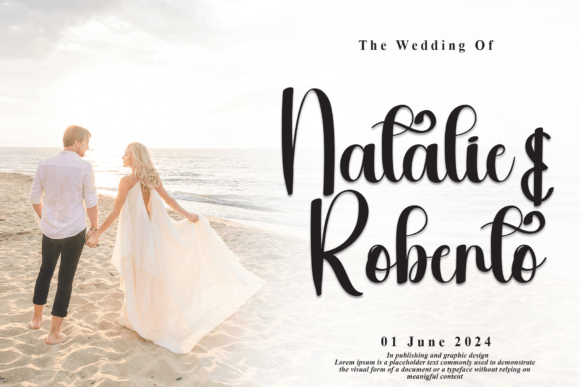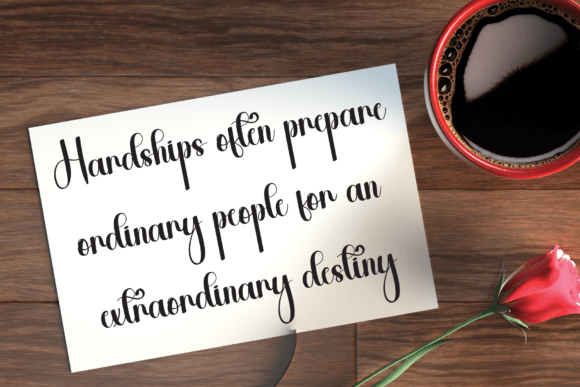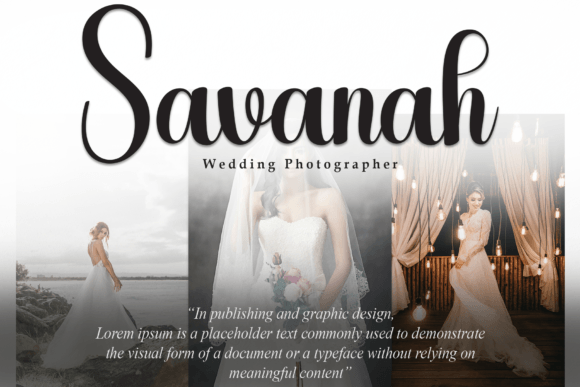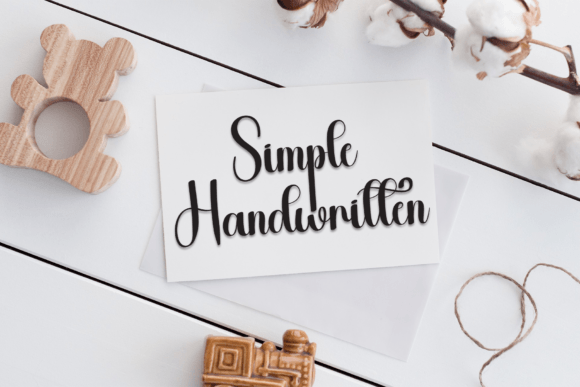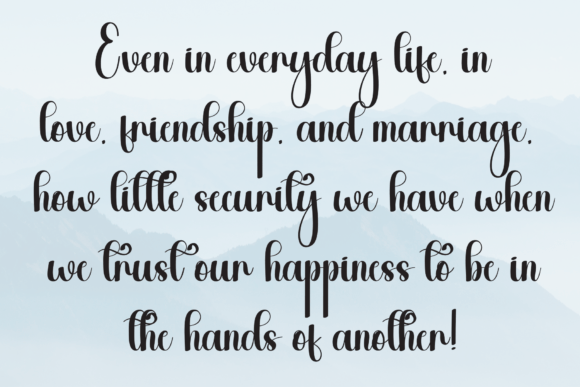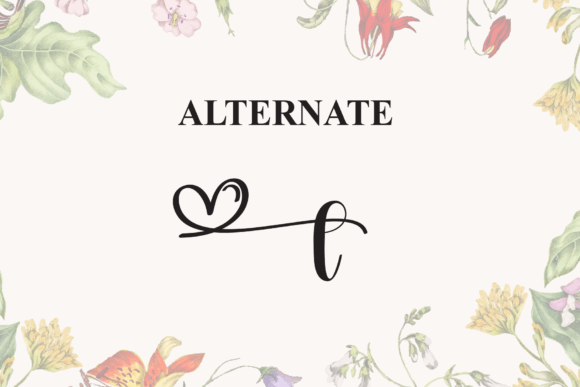
Introducing Amount Font: The Sweet and Friendly Handwritten Font for Your Design Needs
Are you looking for a font that can add a touch of whimsy and fun to your designs? Look no further than Amount Font, a sweet and friendly handwritten font that’s perfect for a variety of projects. In this article, we’ll take a closer look at Amount Font, its features, and how you can use it to elevate your designs.
What is Amount Font?
Amount Font is a beautiful, handwritten font that’s designed to bring a smile to your face. It’s a cute and fun font that’s ideal for writing wedding invitations, cards, or any other design that might need a fun touch. With its sweet and friendly vibe, Amount Font is sure to capture the hearts of your audience and make your designs stand out.
Key Features of Amount Font
So, what makes Amount Font so special? Here are some of its key features:
• Handwritten style: Amount Font has a beautiful, handwritten style that’s perfect for adding a personal touch to your designs.
• Cute and fun: This font is designed to be fun and playful, making it perfect for designs that need a touch of whimsy.
• Versatile: Amount Font can be used for a variety of projects, from wedding invitations and cards to posters and social media graphics.
• Easy to read: Despite its playful style, Amount Font is easy to read, making it perfect for designs that need to communicate a message.
How to Use Amount Font in Your Designs
Now that we’ve covered the features of Amount Font, let’s talk about how you can use it in your designs. Here are some ideas to get you started:
• Wedding invitations: Amount Font is perfect for wedding invitations, as it adds a touch of romance and whimsy to your design.
• Cards: Whether you’re designing birthday cards, thank-you cards, or holiday cards, Amount Font is a great choice.
• Posters: Add a playful touch to your posters with Amount Font, perfect for promoting events, products, or services.
• Social media graphics: Use Amount Font to create engaging social media graphics that will capture the attention of your audience.
Tips for Getting the Most Out of Amount Font
Here are some tips for getting the most out of Amount Font:
• Pair it with other fonts: Amount Font pairs well with other fonts, so don’t be afraid to experiment with different combinations.
• Use it in combination with images: Amount Font looks great when paired with images, so consider using it in combination with photos or illustrations.
• Experiment with colors: Amount Font looks great in a variety of colors, so don’t be afraid to experiment with different color schemes.
In conclusion, Amount Font is a sweet and friendly handwritten font that’s perfect for adding a touch of whimsy and fun to your designs. With its cute and playful style, Amount Font is ideal for a variety of projects, from wedding invitations and cards to posters and social media graphics. By following the tips outlined in this article, you can get the most out of Amount Font and create designs that will capture the hearts of your audience.